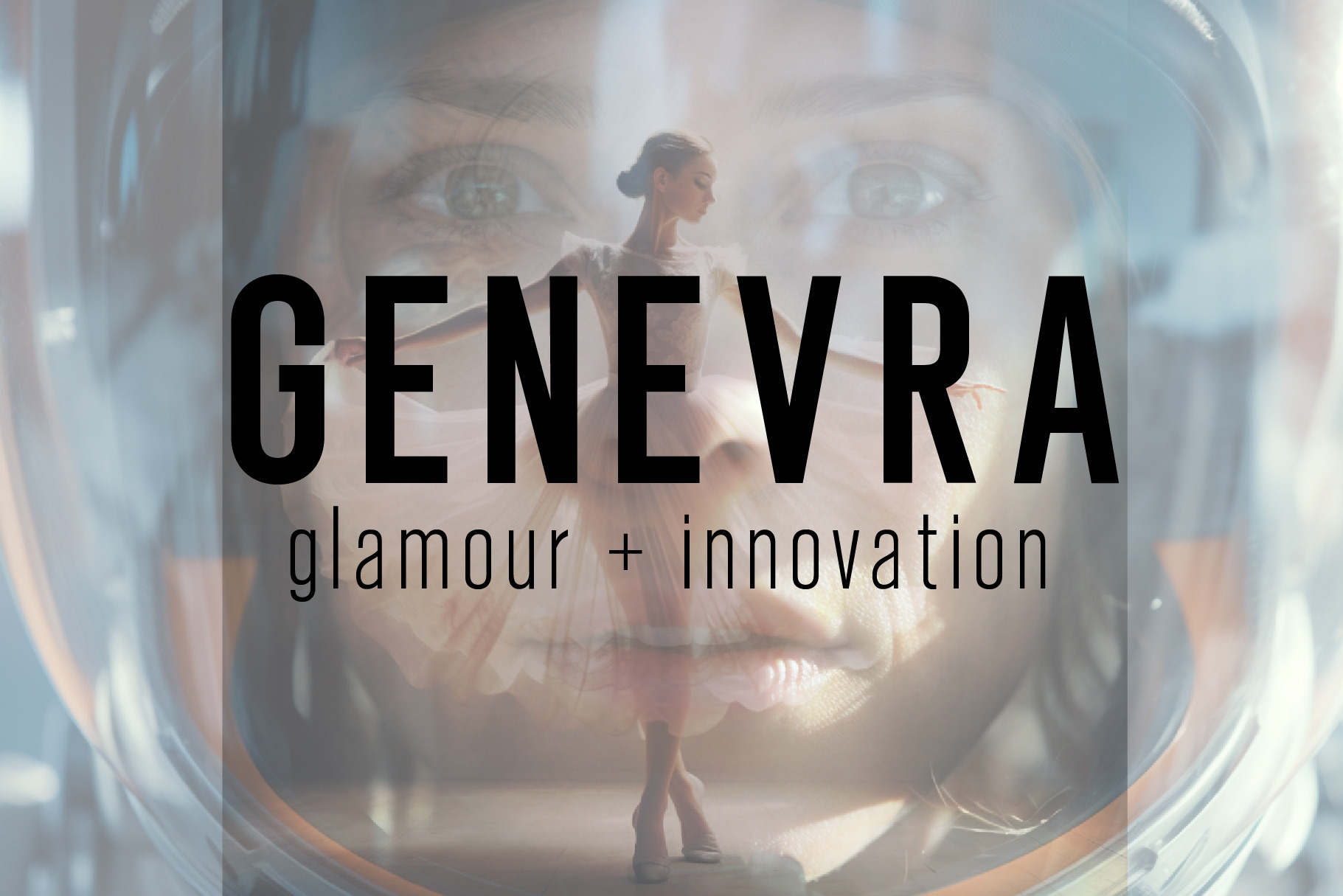
July 18, 2023 - Genevra Condensed Font – now with cool alternate G. Genevra is a versatile and modern upper + lowercase condensed font, as well as multilingual. Extra light, light, regular, semi-bold, bold and slanted for each. Designers have used Genevra for product design, labels, posters, social media marketing, sports apparel, and events. Make beautiful layouts with this versatile condensed sans-serif font. What will you create with Genevra?